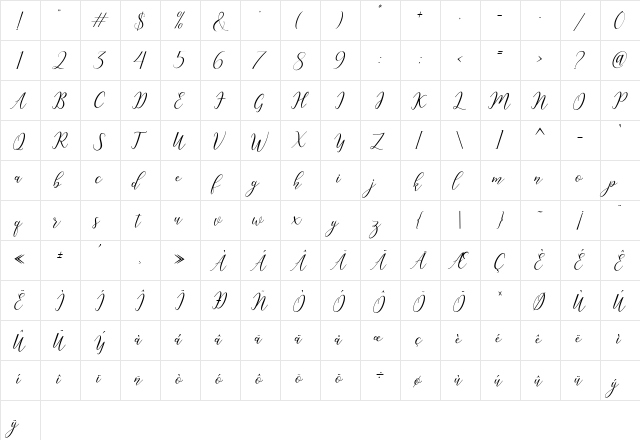
Katlyne Regular
| Foundry | Takiyuddin |
| Designer | Takiyuddin |
Design Context for Katlyne Typeface
Katlyne is a composed and adaptable typeface that performs quietly and consistently across a wide range of design contexts.